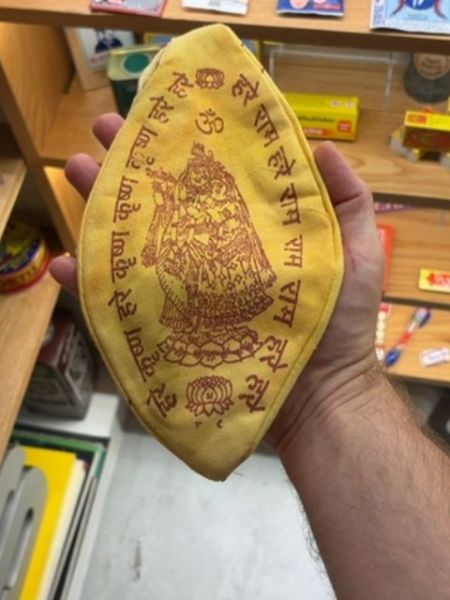
Typography
The typography consists of stylized script, possibly an Indic script, printed in a flowing, calligraphic style. The text curves around the central motif, adding an ornamental touch that complements the traditional design.
Packaging
The packaging appears to be a fabric pouch in a leaf shape, with intricate printed designs. It uses a warm yellow background with reddish-brown ink for the details, including religious motifs and text.
- The packaging has religious or spiritual connotations.
- It features traditional Indian motifs.